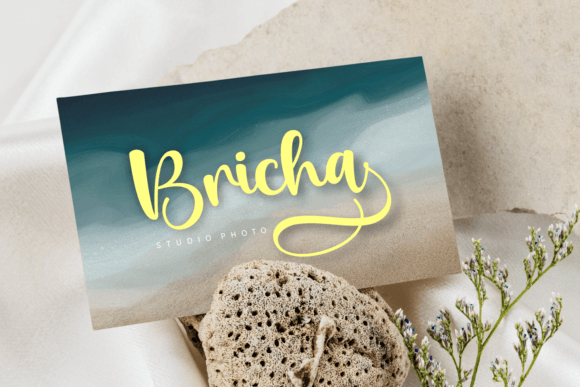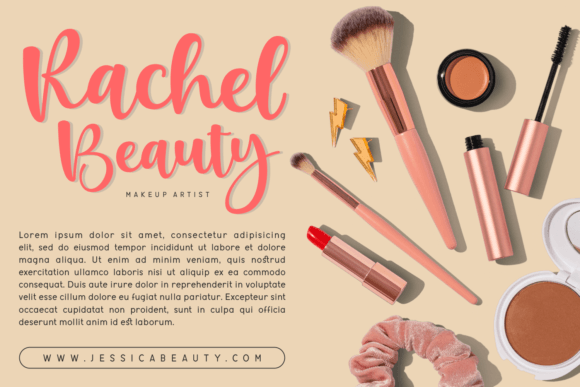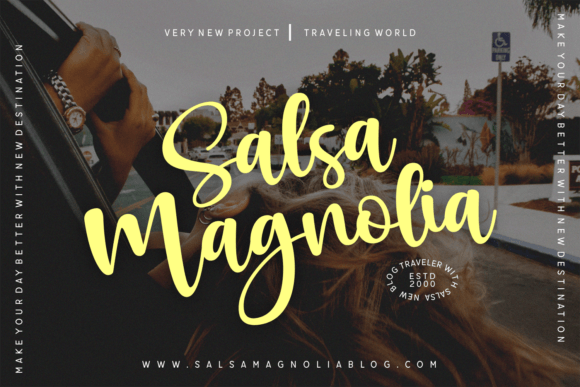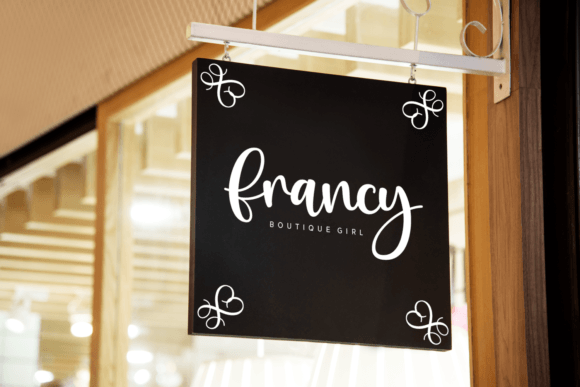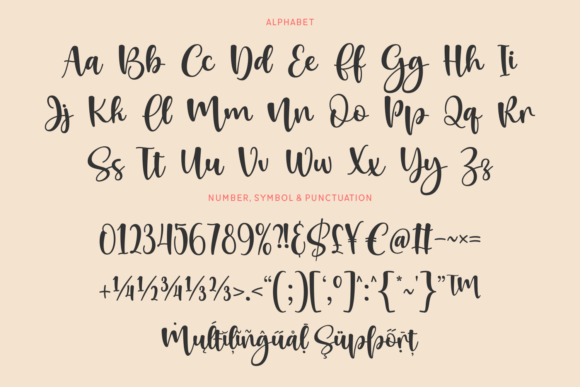
Introduction to Nataley Font
Have you ever stumbled upon a design that makes your heart skip a beat, and you can’t help but wonder what magic went into creating it? For me, that moment was when I discovered the Nataley Font – a delightful script font that exudes sweetness and charm. Its delicate and flowing letters with subtle curves and loops create a soft and elegant look that is perfect for wedding invitations, greeting cards, and designs that require a touch of romance and femininity.
As a designer, having access to high-quality design resources like Nataley Font can be a game-changer for any creative project. With its PUA-encoded features, you can effortlessly access all the delightful glyphs and swashes, giving you the freedom to experiment and push the boundaries of your designs. Whether you’re working on a personal project or a client’s design, Nataley Font is a valuable addition to your design resource library.
Key Features of Nataley Font
- Unique, elegant script font with a transparent background, perfect for adding a touch of sophistication to any design.
- Each character is meticulously crafted with attention to detail, resulting in a smooth, even texture and a professional finish.
- Perfect for use in logos, branding, invitations, and other creative projects where a unique, high-end font is required.
Honest Review: Nataley Font
I recently stumbled upon the Nataley Font, and I must say, it’s a wonderful addition to any design resource. As a designer, I’m always on the lookout for high-quality fonts that can elevate my creative project.
- Beautiful, elegant design
- High-quality vector graphics
- No bold or italic variations (although this might be intentional for a more minimalist look)
- Some characters may not be supported in all languages
Overall, I’m impressed with the Nataley Font. Its elegant design and high-quality graphics make it a great addition to any design resource. While it has some limitations, it’s a great option for designers looking for a free, high-quality font.